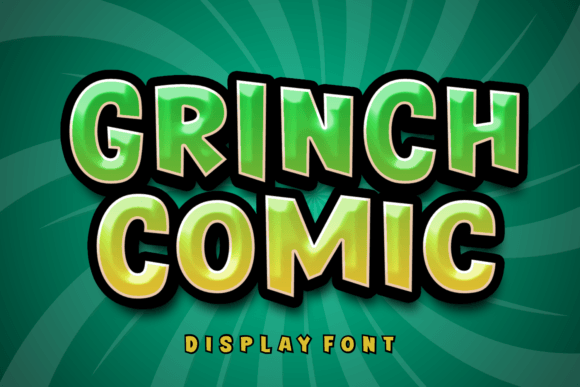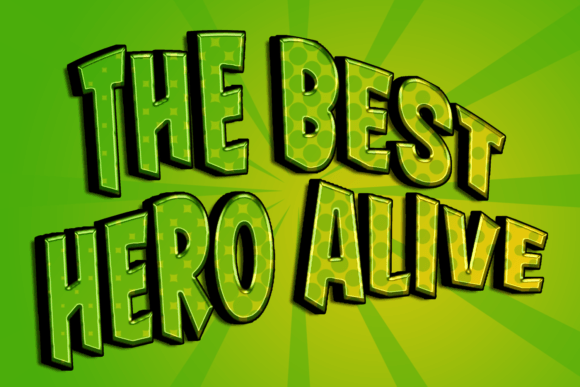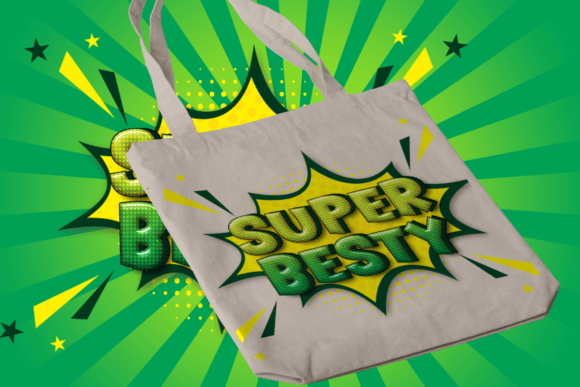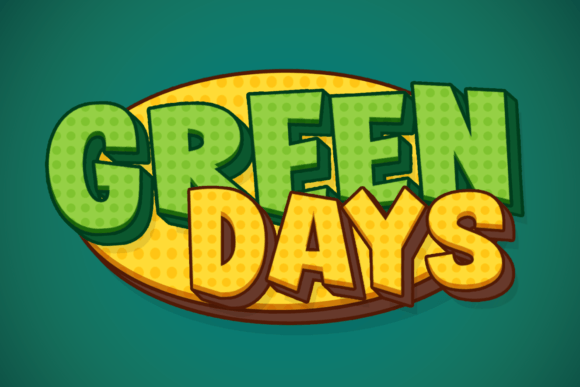
Grinch Comic Font
Grinch Comic is a cute and quirky display font. It will add an incredibly joyful touch to your designs. Add this beautiful display font to each of your creative ideas and notice how it makes them stand out!